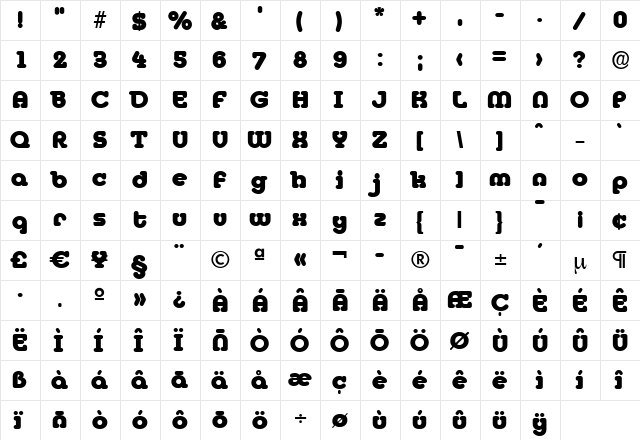
DesireeBecker-Heavy Regular
Design Context for DesireeBecker-Heavy Typeface
DesireeBecker-Heavy is a composed and adaptable typeface that performs quietly and consistently across a wide range of design contexts.